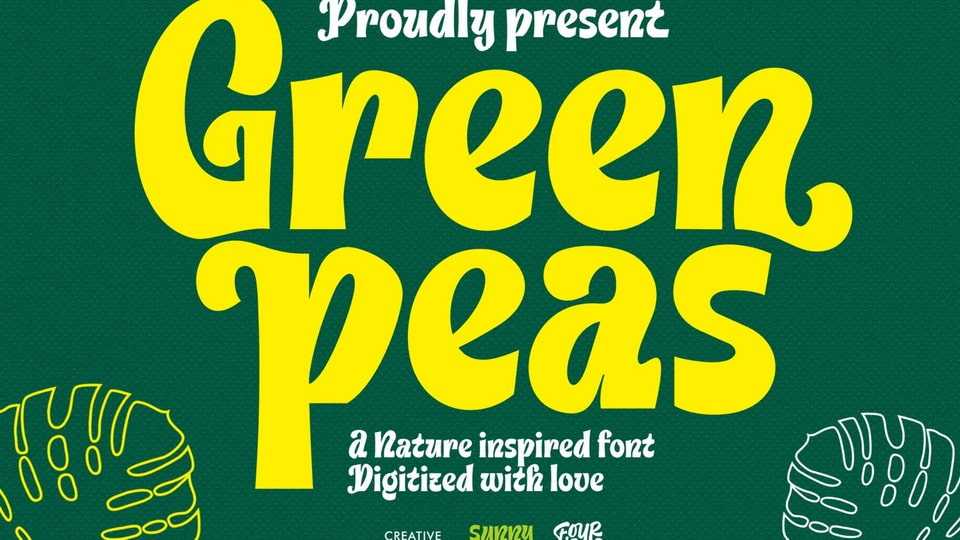
Download Green Peas font, a playful display typeface that offers a harmonious balance between beauty and elegance of nature. Green Peas font combines legibility and readability with a touch of whimsy, making it perfect for both digital and print mediums.
Designer: Fourlines Design